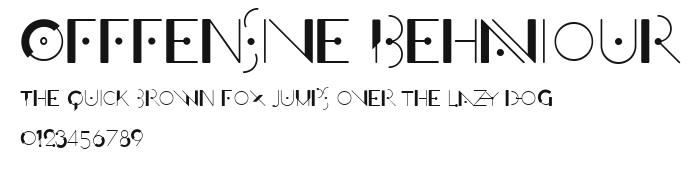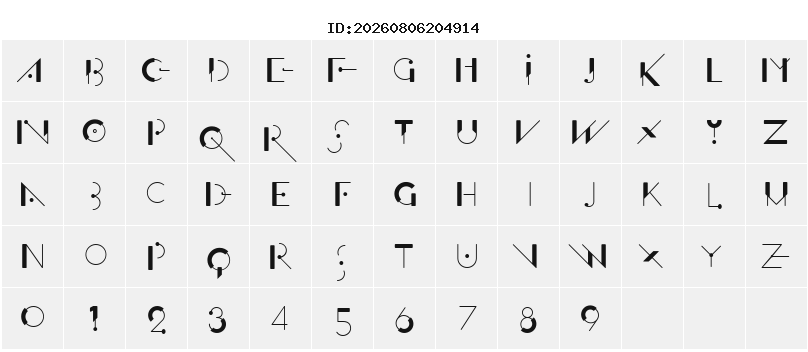
Offfensive Behaviour Preview
• Font Name: Offfensive Behaviour
• Font ID: Zetafonts: Offfensive Behaviour: 2014
• Full Font Name: Offfensive Behaviour
• Version: Version 2.001
• PostScript Name: OfffensiveBehaviour
• Character Count: 590
• Designer: Cosimo Lorenzo Pancini
• Manufacturer: Zetafonts
About Offfensive Behaviour.otf
Offfensive Behaviour.otf is a modern, elegant sans-serif font designed for ultimate readability and visual harmony. Perfect for branding, headlines, web design, and print materials.